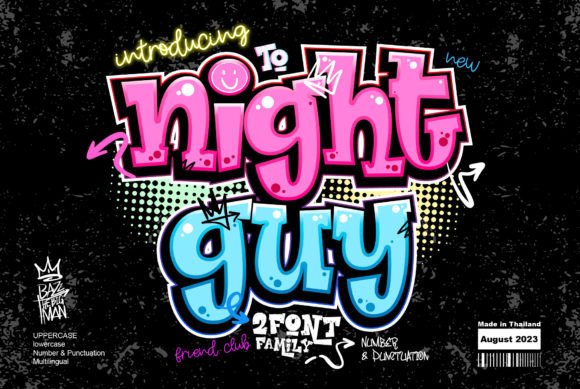
Introducing Night Guy Font, a captivating and bold graffiti display font that is bound to leave a lasting impression on your creative projects! Crafted by the talented team at BB Type Studios, this incredibly unique font is the perfect choice for anyone looking to elevate their designs to an extraordinary level.
With its edgy and eye-catching aesthetics, Night Guy Font is guaranteed to grab the attention of your audience. Whether you're working on a TV display, advertising campaign, or any other project that requires a touch of boldness, this font will effortlessly steal the spotlight.
Get ready to unleash your creativity with Night Guy Font! Its masterful design and attention to detail make it a true favorite among designers and artists alike. Each character has been meticulously crafted to add a touch of flair and uniqueness to your work, ensuring that your creations stand out from the crowd.
But Night Guy Font is not just about looks - it also delivers on functionality. With its versatile nature, this font can adapt to any project, allowing you to explore various styles and concepts. From urban and street-inspired designs to modern and futuristic aesthetics, Night Guy Font is your ultimate tool for unleashing your imagination.
What sets Night Guy Font apart from the rest is its ability to evoke emotions and tell a story. Its bold and daring appearance instantly captures attention and creates a sense of excitement and energy. Your audience will be drawn to your designs, unable to resist the allure of Night Guy Font.